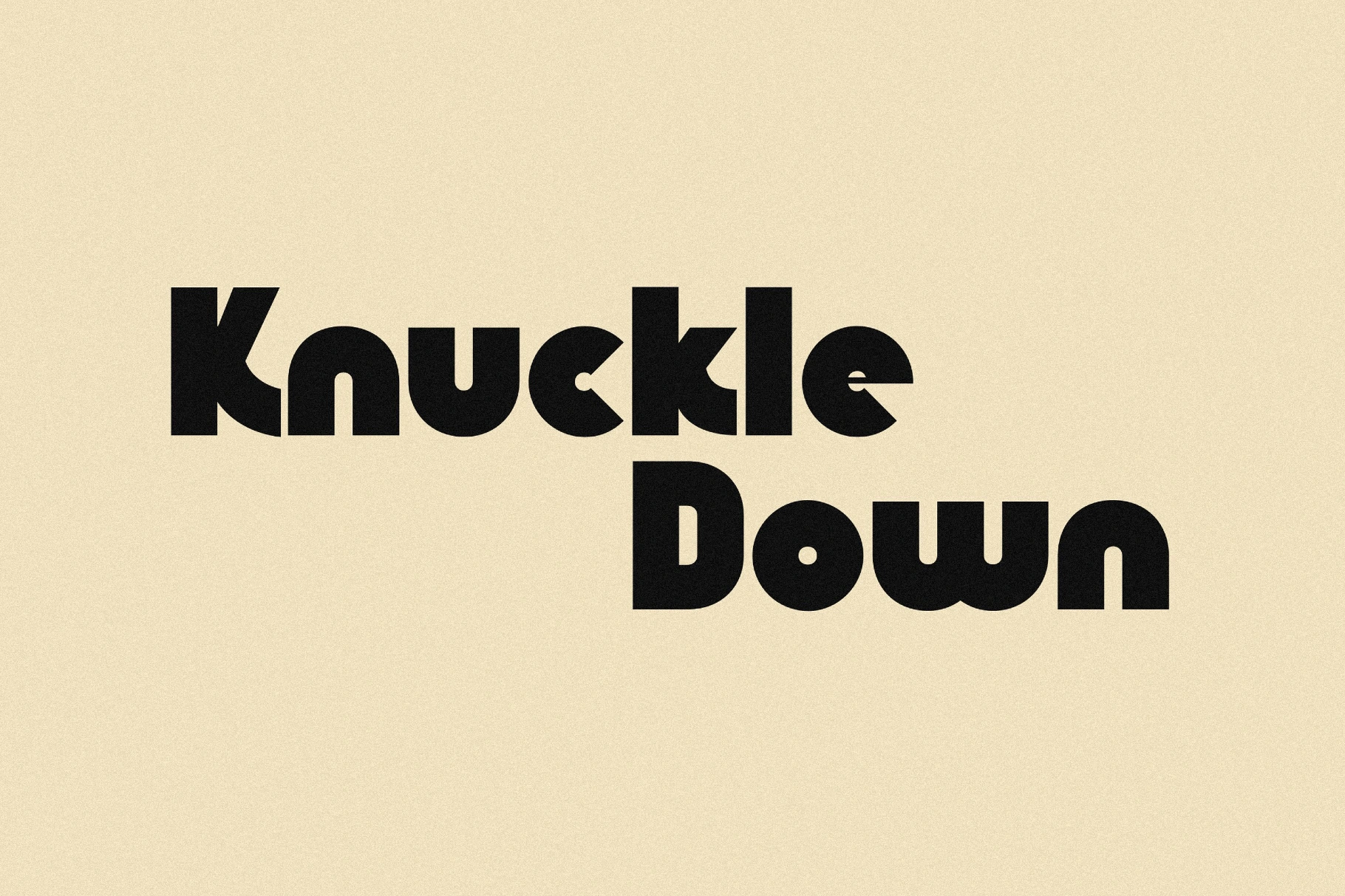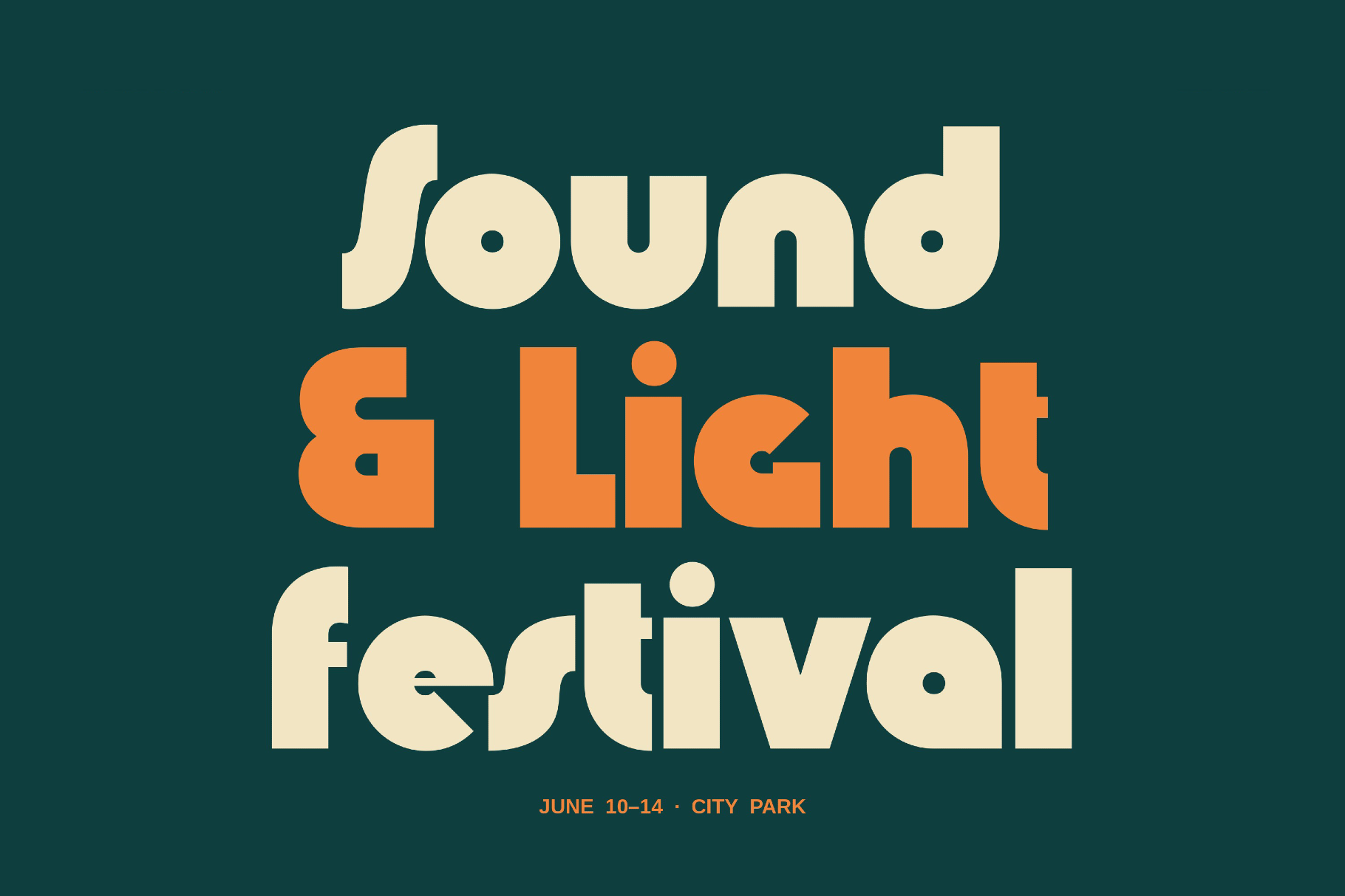
Knuckle Down - Retro Groovy Display
Knuckle Down
Knuckle Down hits with heavy, battered letterforms and a street-fight swagger ragged through boxing gyms and garage-show walls. The bold groovy font delivers rough edges, compact pressure, and bruised display style.
Works well for sports branding, bar signage, band logos, tattoo-shop graphics, event posters, apparel prints, wrestling promos, beer labels, motorcycle culture visuals, and social media artwork.
- uppercase and lowercase letters;
- numbers, punctuation, and symbols;
- multilingual support across the extended Latin scripts;
- ligatures.